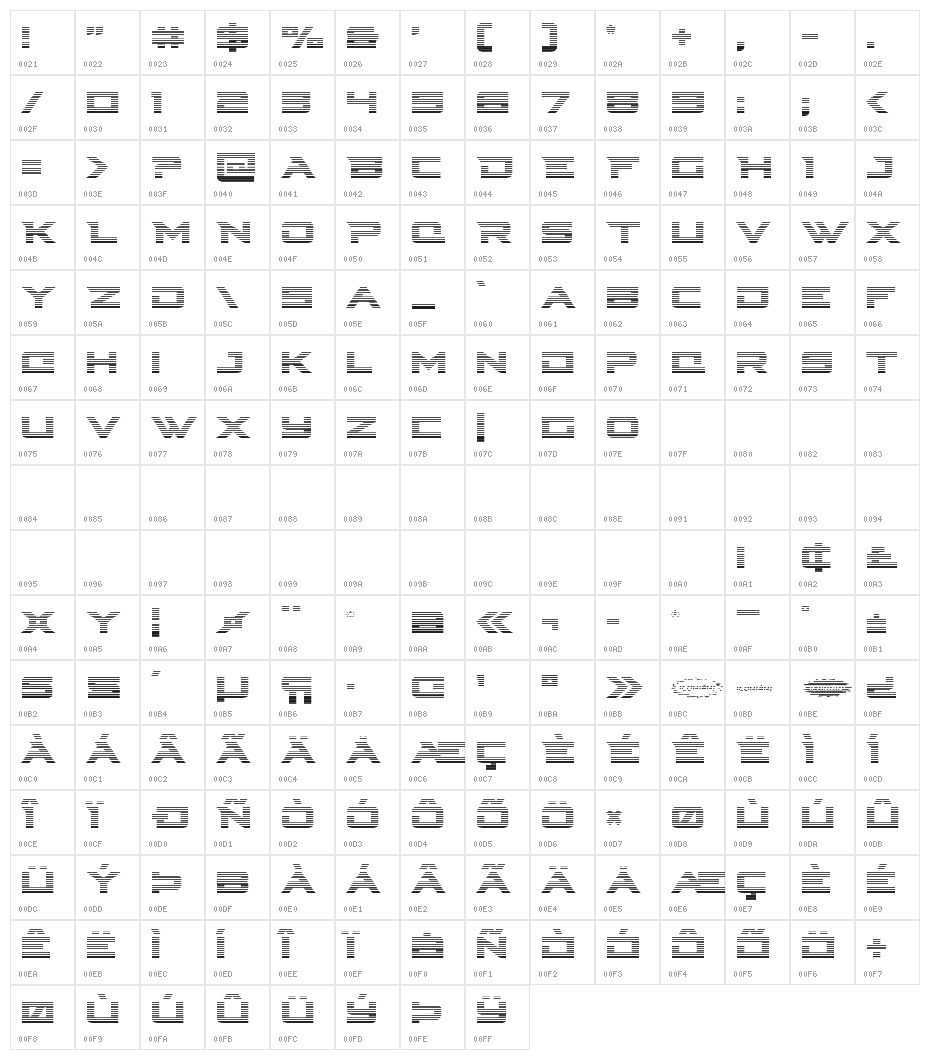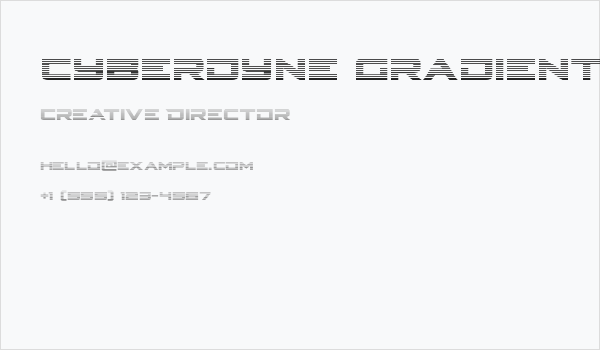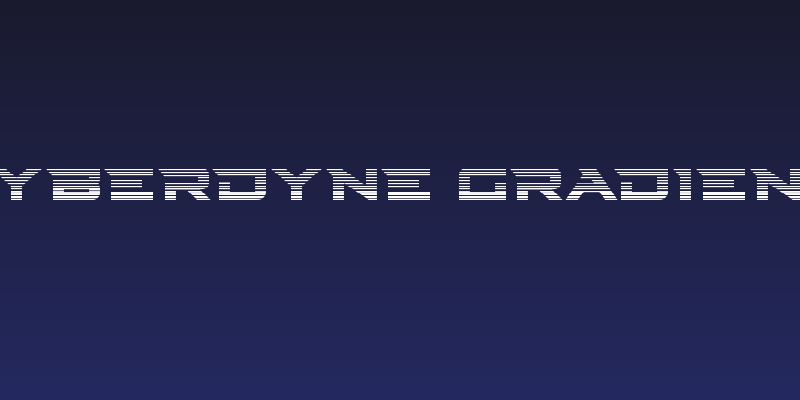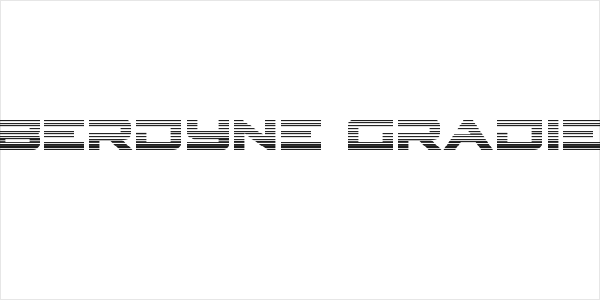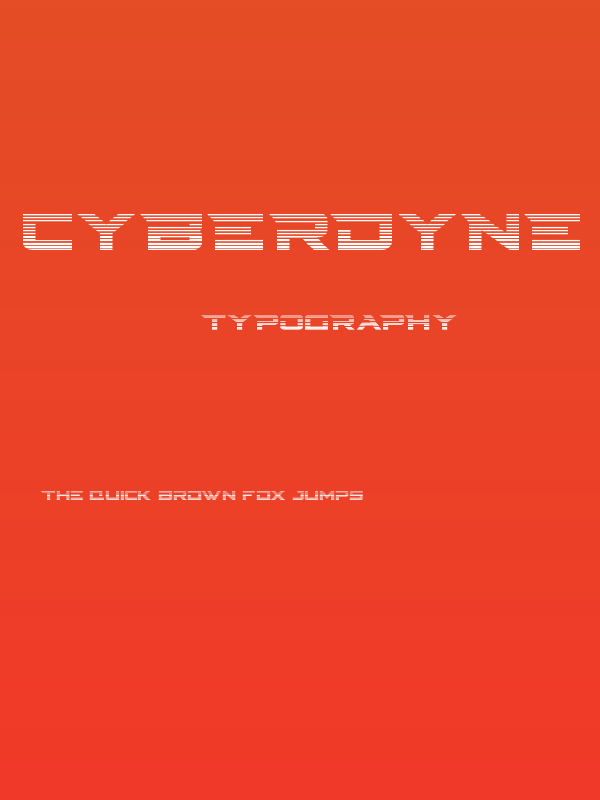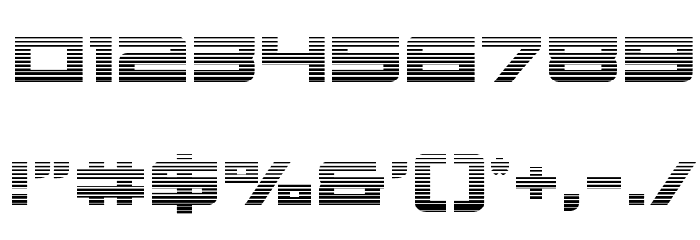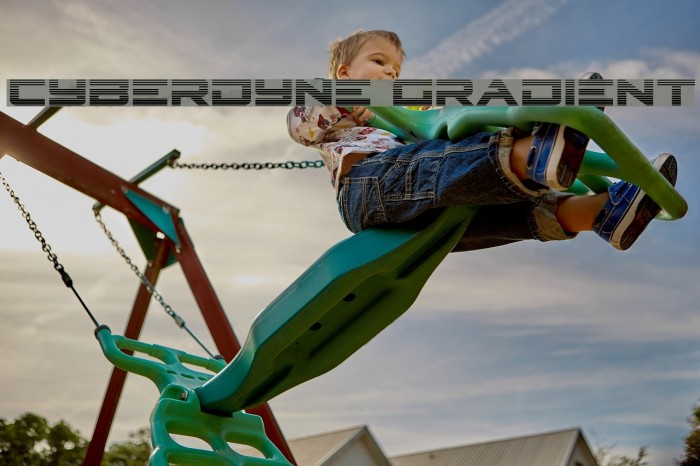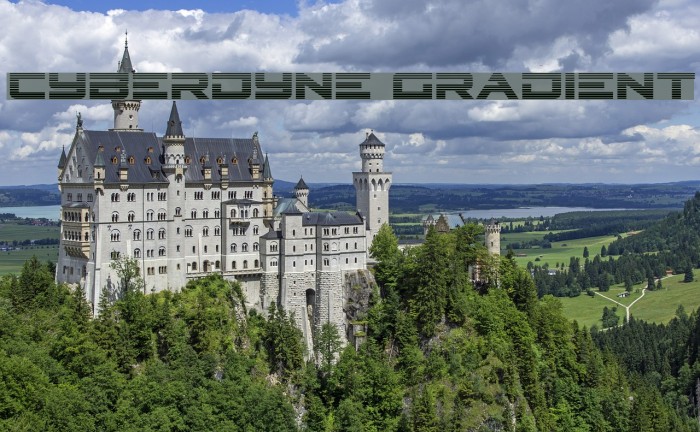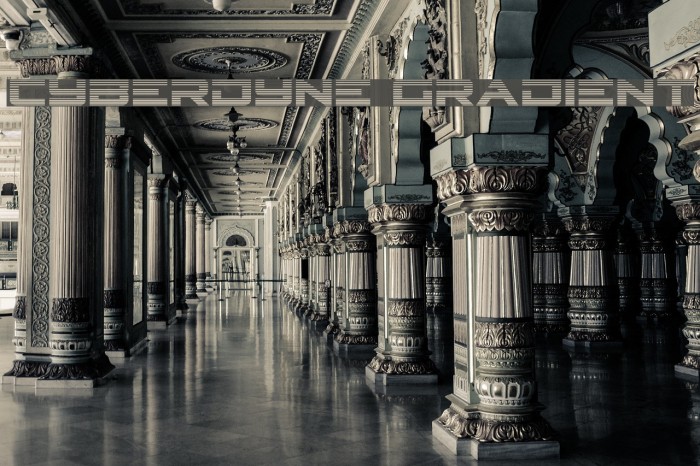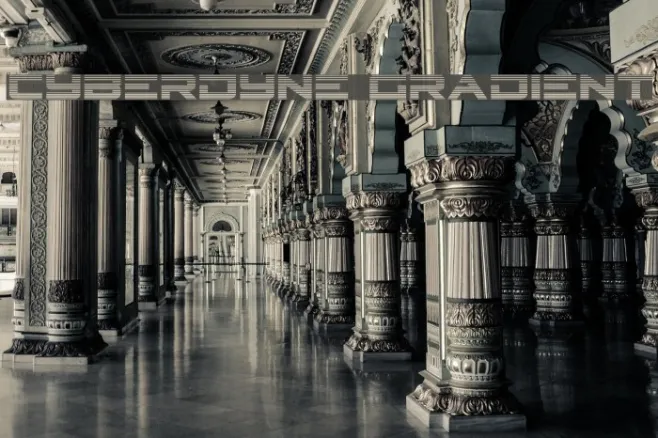
Cyberdyne Gradient Font
Cyberdyne Gradient Description
This font features a futuristic and digital aesthetic, characterized by its unique use of horizontal lines that create a gradient effect within each character. The uppercase and lowercase letters maintain a consistent geometric structure, giving the font a cohesive and modern appearance. The numerals and special characters follow the same design principles, ensuring uniformity across all glyphs. The font's sharp angles and clean lines make it ideal for projects that require a tech-savvy or sci-fi theme. Its distinct style is both eye-catching and readable, making it suitable for various design applications.
| Proposed Projects | Ideal for tech branding, sci-fi movie posters, video game interfaces, and digital art projects. |